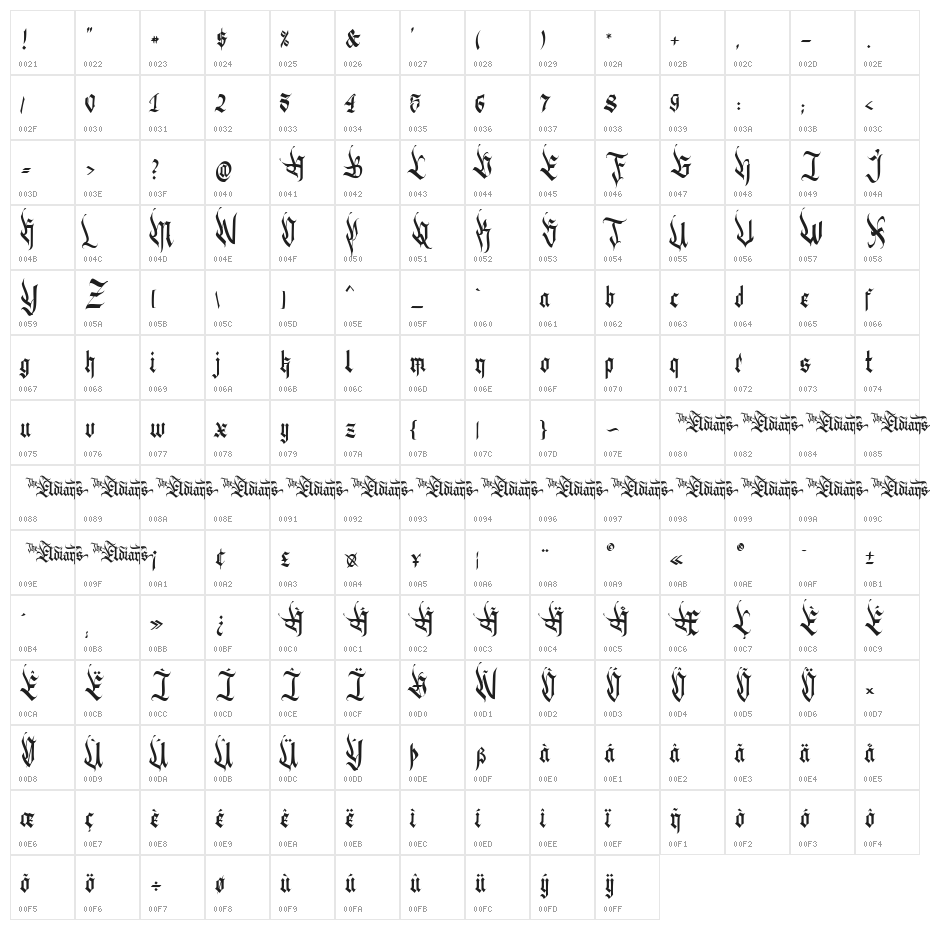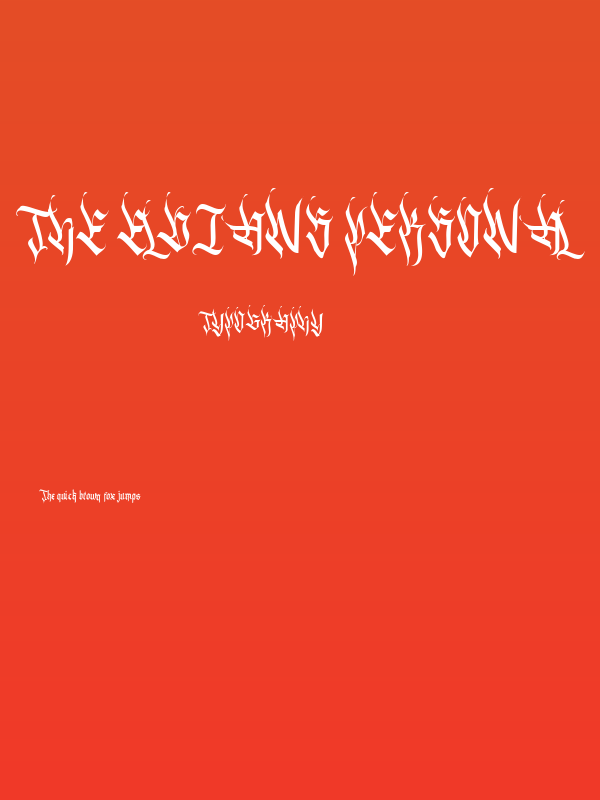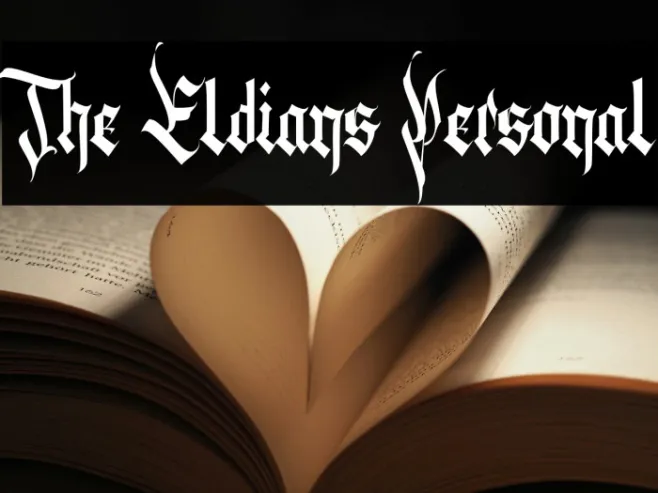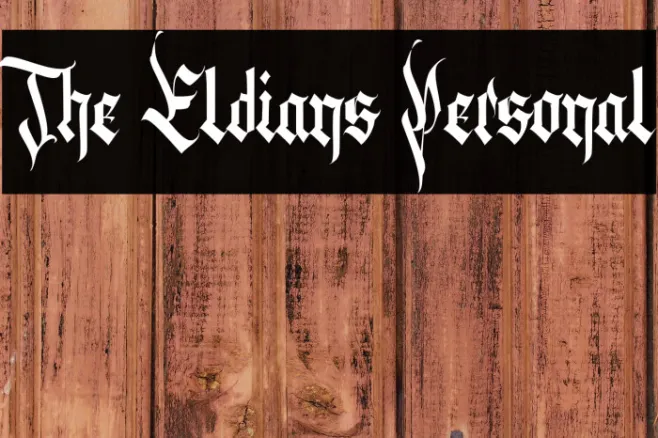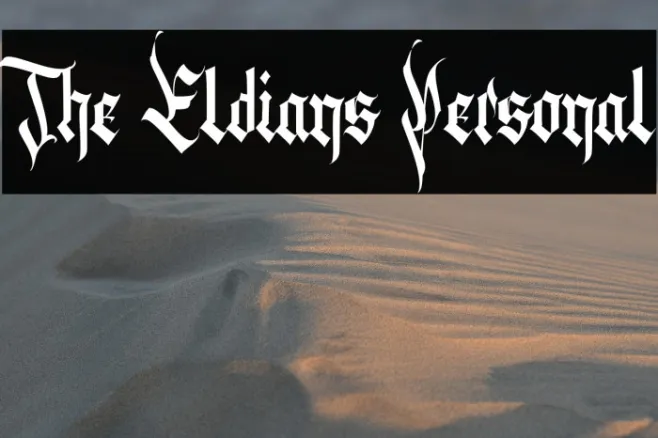
The Eldians Personal Font
The Eldians Personal Description
This font exhibits a striking blackletter style, characterized by its sharp, angular lines and intricate detailing. The uppercase letters are bold and commanding, with dramatic flourishes that evoke a sense of historical elegance. The lowercase letters maintain the same intricate design, ensuring consistency throughout. Numbers and special characters are crafted with the same attention to detail, making them stand out. This font's unique style is reminiscent of medieval manuscripts, offering a sense of tradition and formality.
| Overall Style | Vintage |
| Proposed Projects | Ideal for projects requiring a historical or formal touch, such as invitations, certificates, or branding for luxury products. |